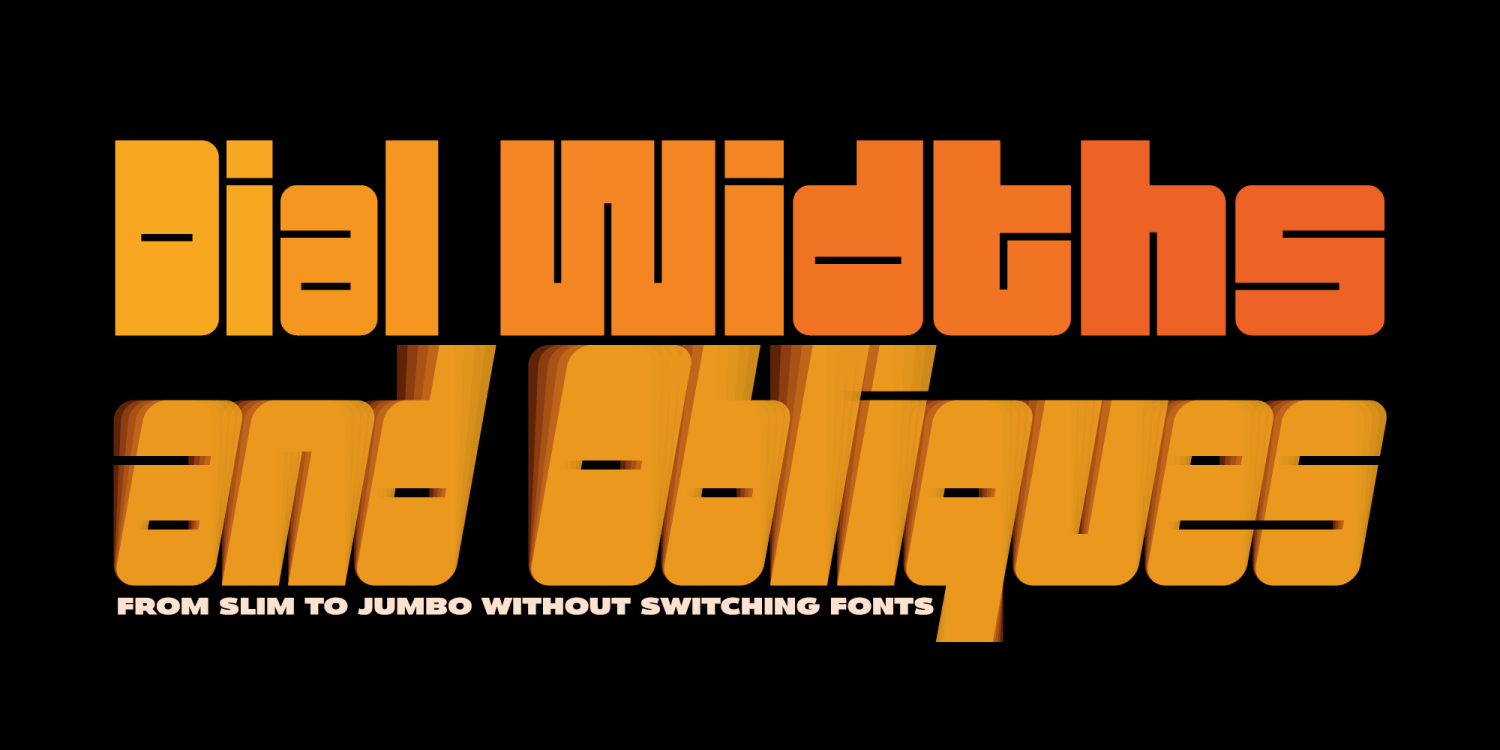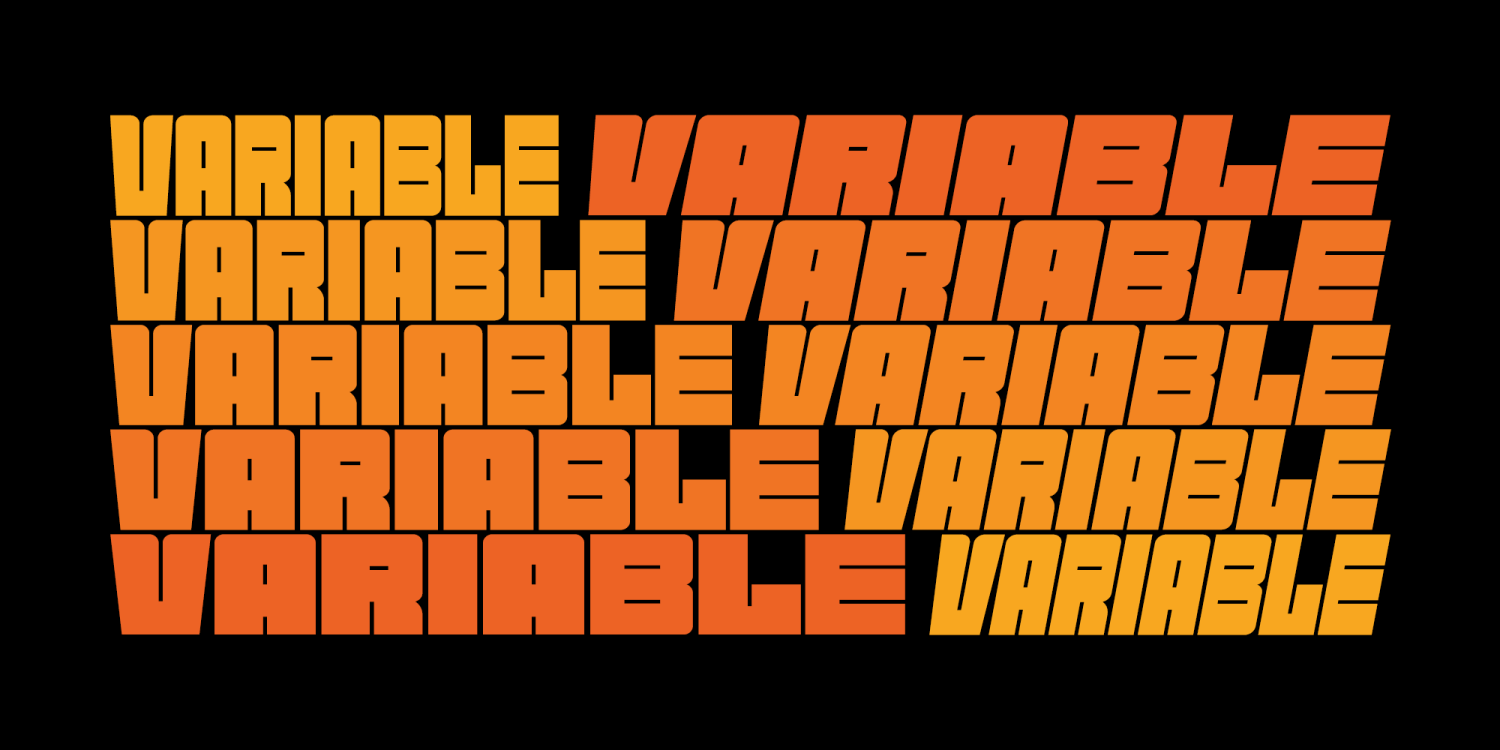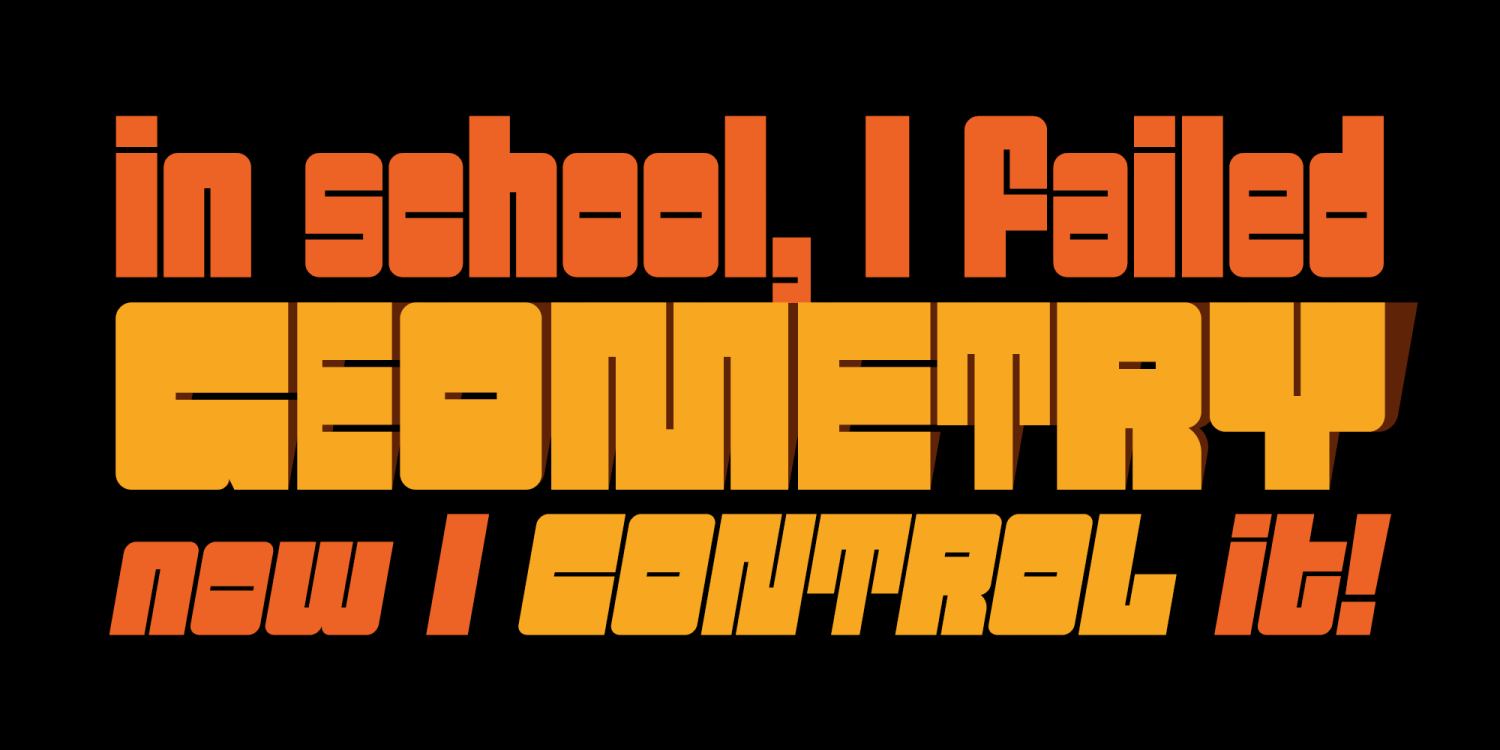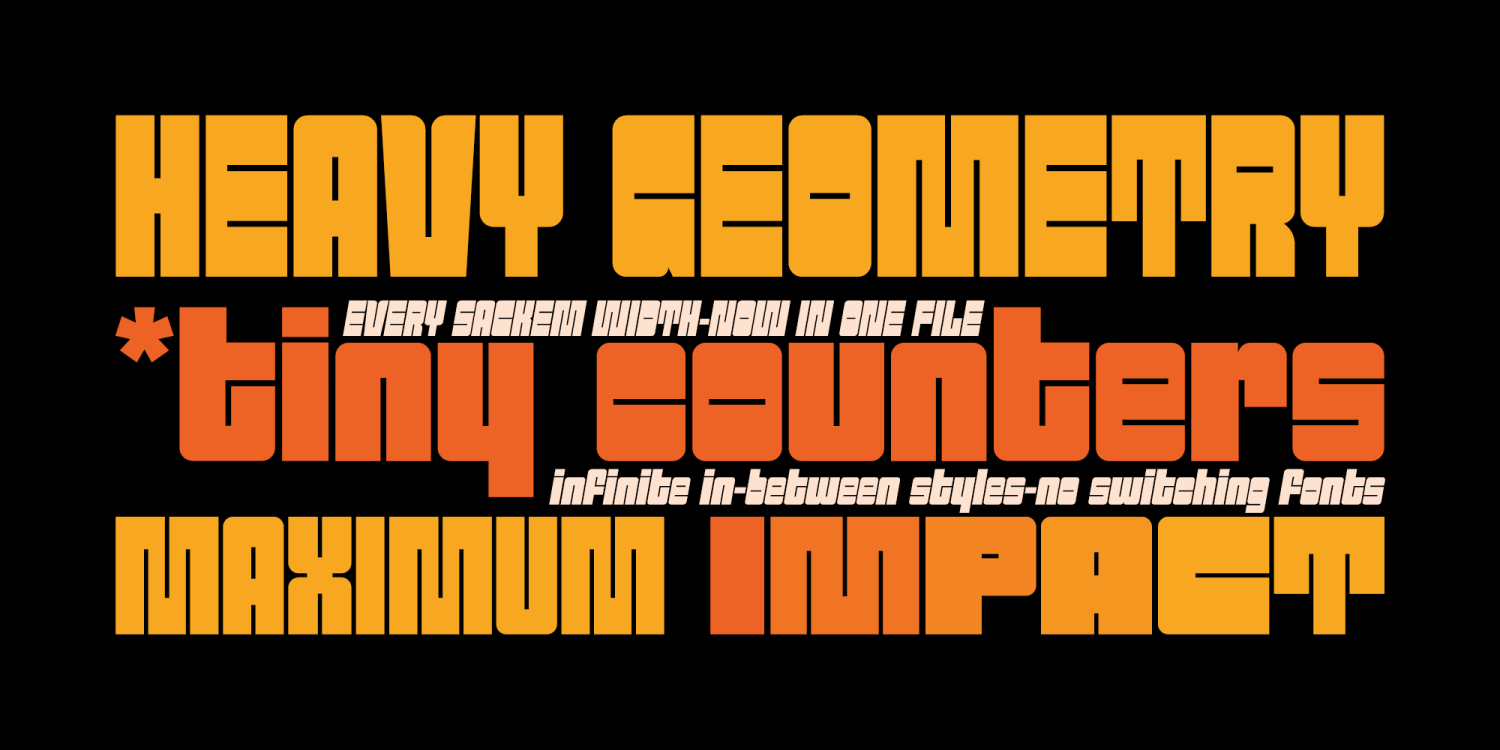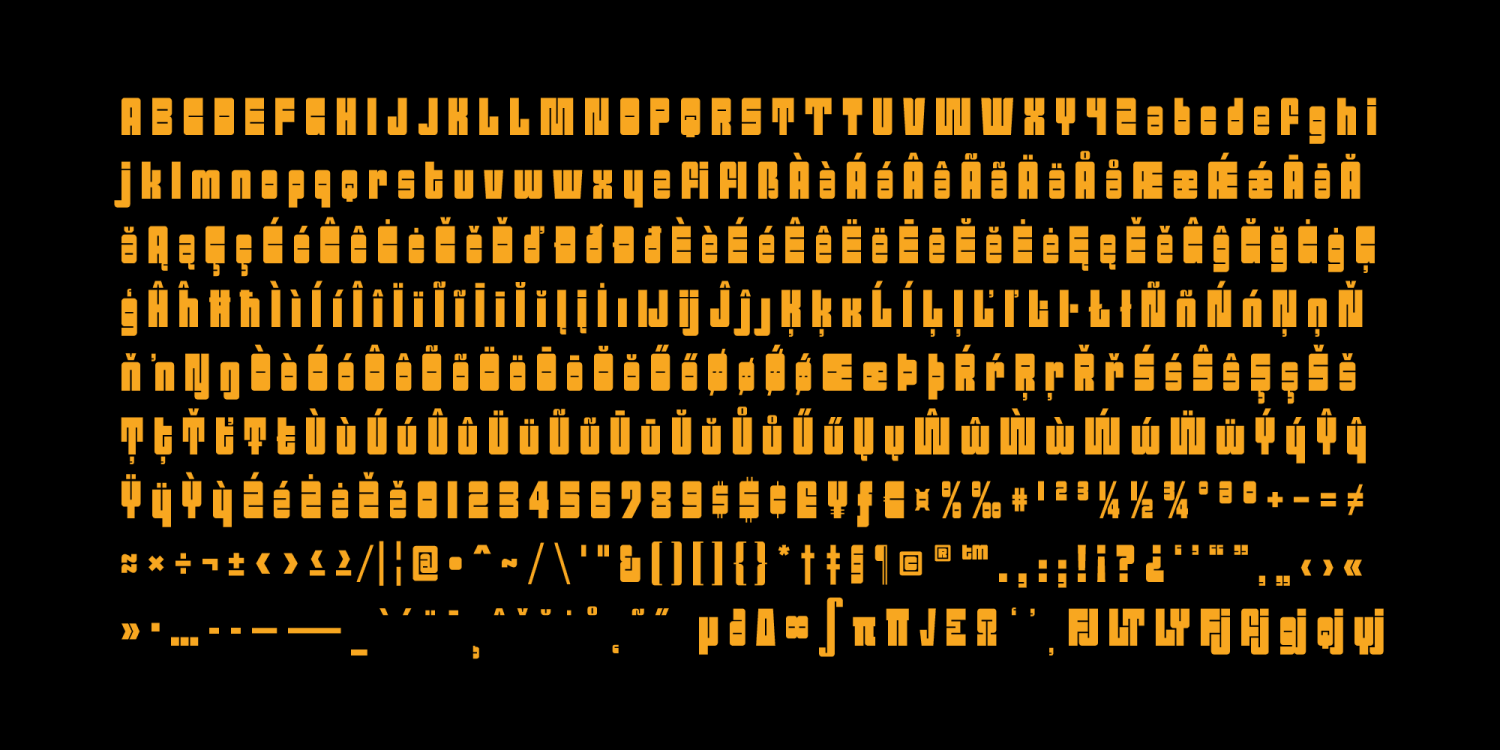
Sackem VF PB
Buy NowThere’s just something magical about a chunky geometric heavyweight with tiny counters—it hits with the same feel-good energy as a Bee Gees chorus. Sackem PB started as a revival of the classic Lettergraphics film typeface Benman Jumbo, then grew into a 10-font family packed with personality, from the narrow Slim styles to the big, joyful Jumbo originals.
Now it gets an upgrade: the Sackem PB Variable Font, letting you slide effortlessly through widths and obliques to find your perfect flavor of boldness. It’s the full Sackem universe in one flexible, expressive file.